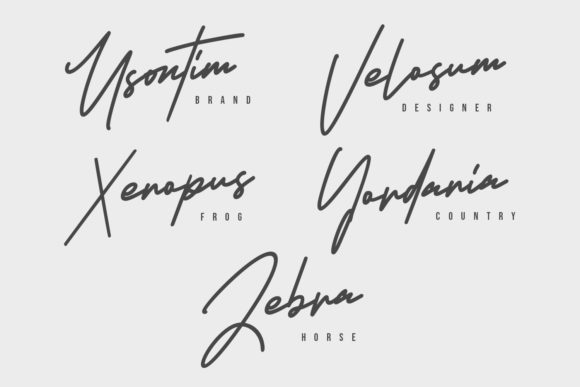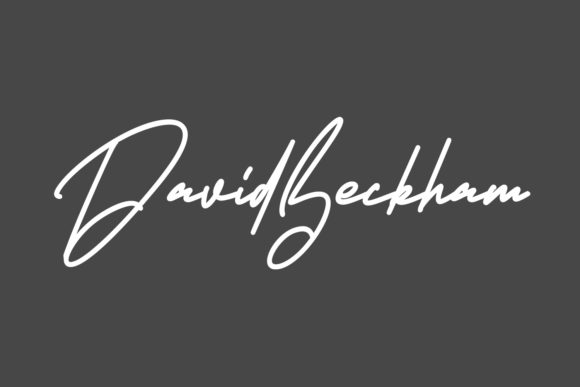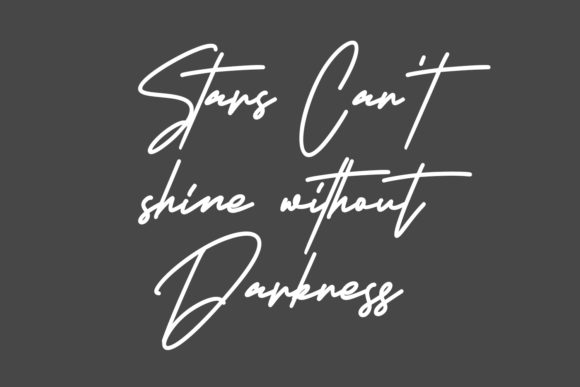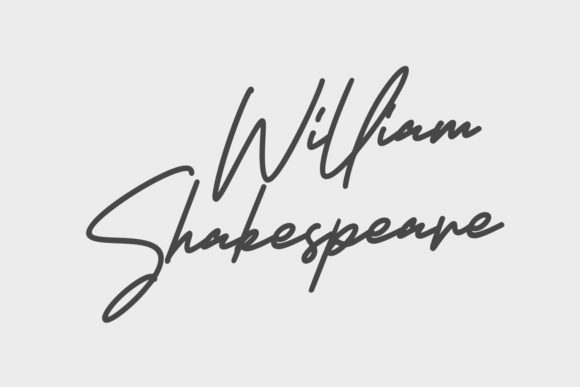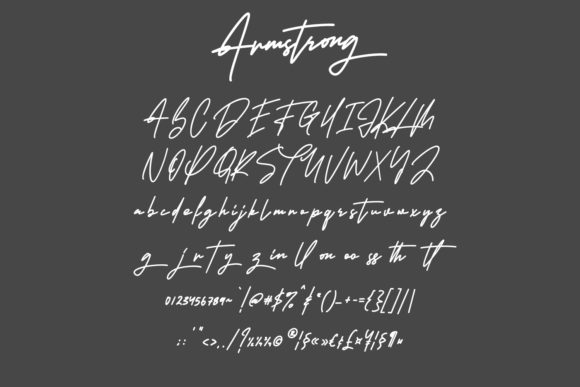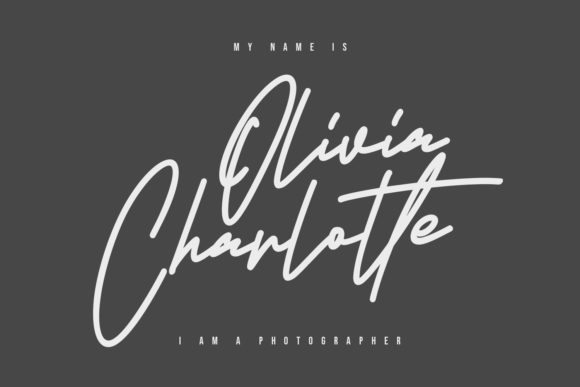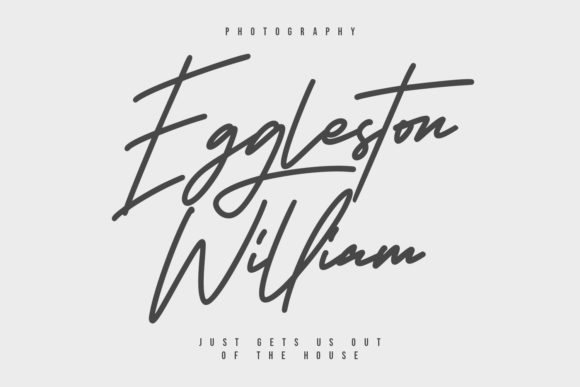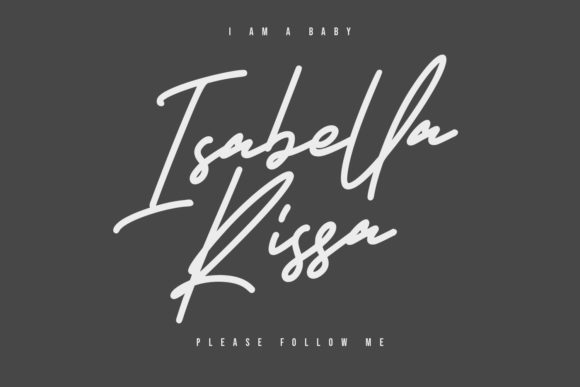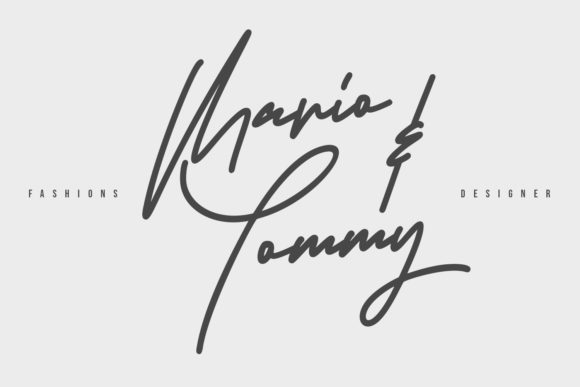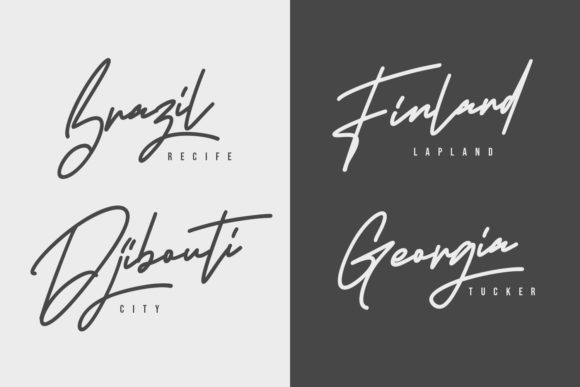
Armstrong Signature Font
About Armstrong Signature Font
Armstrong Signature sounds like an exceptional handwritten font that combines classic calligraphic influences with a contemporary and fresh touch. Its elegant and flowing style makes it a perfect choice for a wide range of design projects, helping them reach new heights of sophistication and creativity. Here are some ideas on how to utilize Armstrong Signature to create stunning and captivating designs:
1. Wedding Invitations: Craft elegant and luxurious wedding invitations that set the tone for a memorable celebration of love and romance, using Armstrong Signature to add a personal and sophisticated touch.
2. Branding and Logos: Incorporate Armstrong Signature into branding materials, such as logos, business cards, and packaging, to create a strong and memorable visual identity.
3. Quote Graphics: Create beautiful typography art and quote graphics with Armstrong Signature, bringing inspiring messages and thoughts to life in an elegant and artistic manner.
4. Book Covers: Design captivating book covers for novels, poetry collections, and other literary works, enhancing the allure of the content with Armstrong Signature’s timeless charm.
5. Greeting Cards: Use Armstrong Signature to design heartfelt and elegant greeting cards for various occasions, from birthdays to holidays and special events.
6. Artistic Prints: Produce art prints featuring Armstrong Signature’s flowing script, adding a touch of refinement to any gallery or art collection.
7. Fine Dining Menus: Design upscale and refined menus for high-end restaurants and fine dining establishments, using Armstrong Signature to create a memorable dining experience.
8. Fashion and Beauty Brands: Enhance fashion and beauty branding with Armstrong Signature’s elegance, appealing to a sophisticated and discerning audience.
9. Luxury Packaging: Elevate the perceived value of luxury products by incorporating Armstrong Signature into packaging designs, making the unboxing experience truly special.
10. Calligraphy Art: Showcase the beauty of calligraphy art with Armstrong Signature, creating personalized pieces for special occasions and events.
11. Magazine Headlines: Use Armstrong Signature to add an artistic and eye-catching touch to magazine headlines and editorial layouts.
12. Event Invitations: Craft sophisticated and stylish event invitations, such as galas, fundraisers, and corporate gatherings, using Armstrong Signature to create a lasting impression.
13. Wine and Spirits Labels: Design elegant and premium wine and spirits labels, using Armstrong Signature to convey a sense of sophistication and refinement.
14. Inspirational Posters: Create inspiring and motivational posters with Armstrong Signature, encouraging and uplifting audiences with its elegant lettering.
15. Interior Decor: Use Armstrong Signature to create custom calligraphy art for interior decor, adding a personal and artistic touch to living spaces.
16. Personal Journals and Planners: Design elegant and timeless journals and planners featuring Armstrong Signature, providing a stylish and organized way to capture thoughts and plans.
17. Nature-Themed Designs: Infuse nature-themed designs with the grace of Armstrong Signature, capturing the beauty of the outdoors with its flowing script.
18. Certificate Designs: Create sophisticated certificate designs for academic achievements, awards, and recognition, using Armstrong Signature to add a touch of elegance.
19. Stationery Sets: Craft high-quality stationery sets with Armstrong Signature, offering a refined and polished way to correspond with others.
20. Artistic Murals and Wall Decor: Transform walls into stunning pieces of art with Armstrong Signature’s graceful script, creating captivating murals and wall decor.
In summary, Armstrong Signature is an exquisite handwritten font that blends timeless calligraphic influences with a contemporary flair. From wedding invitations to branding, art prints, and more, Armstrong Signature can elevate your designs and add a touch of sophistication and elegance. Embrace its flowing and artistic nature to create captivating and memorable visual experiences in your projects.